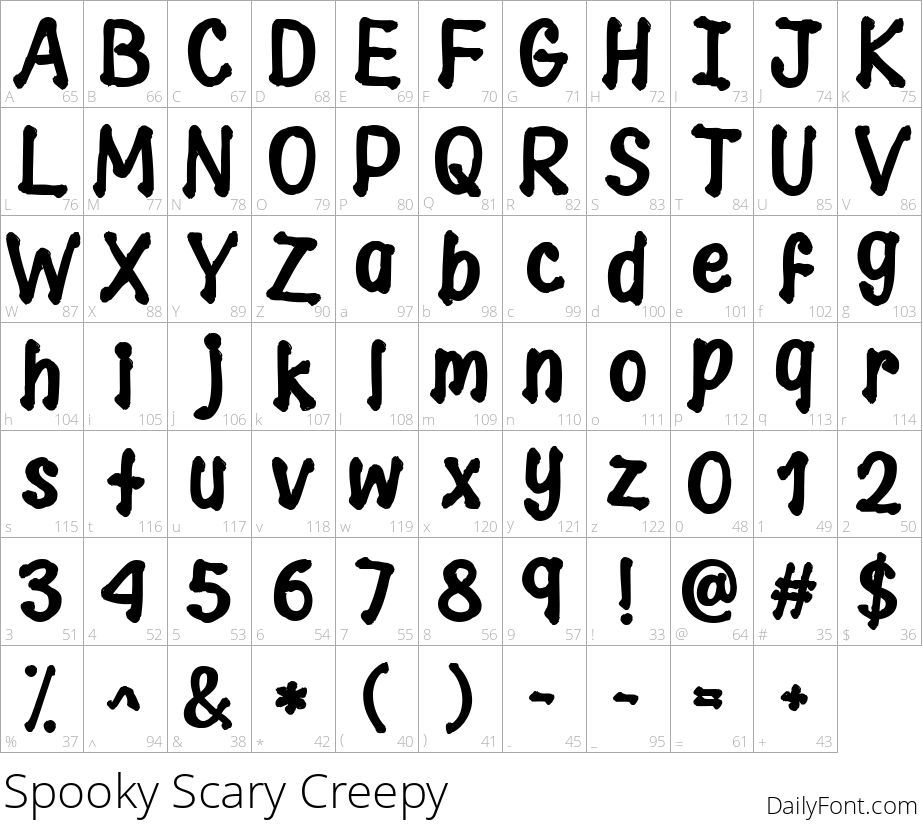
Spooky Scary Creepy
Introducing Spooky Scary Creepy, the ultimate Halloween typeface! This unique font boasts rough, distorted edges that evoke an eerie vibe, making it an ideal choice for all your spooky seasonal projects. Whether you're crafting posters, designing invitations, or creating haunted-themed graphics, Spooky Scary Creepy will add that perfect hauntingly fun touch that captures the spirit of Halloween.
With its eye-catching design and playful yet creepy aesthetic, this font is sure to grab attention and engage your audience. Its versatility allows you to utilize it across various mediums, ensuring your Halloween themes come to life. Don't miss out on the opportunity to elevate your creative endeavors with Spooky Scary Creepy, the font that infuses fun and fright into every project!